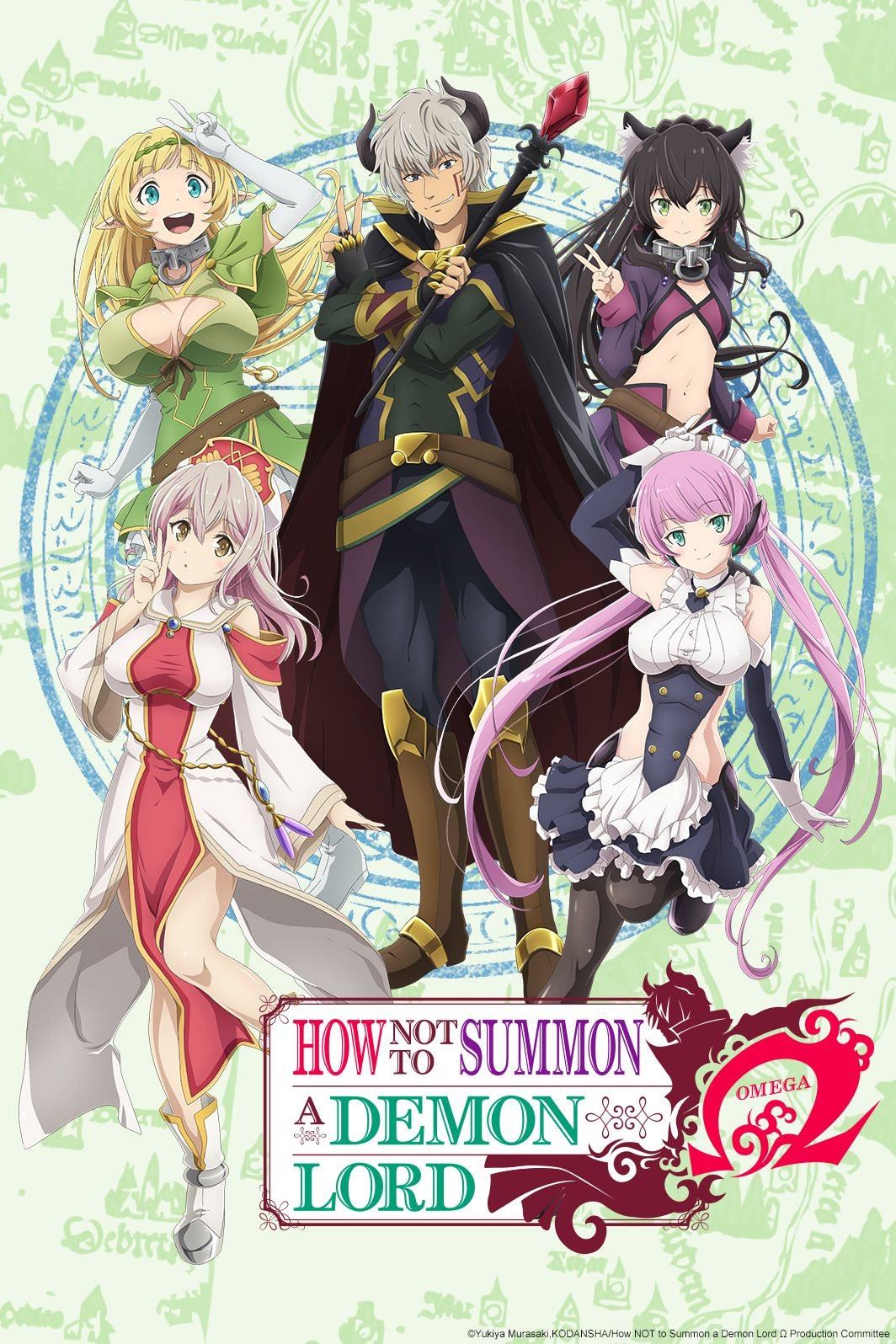
How Not to Summon a Demon Lord Font
BookHow Not to Summon a Demon Lord is a Japanese light novel series illustrated by Takahiro Tsurusaki and written by Yukiya Murasaki. J-Novel Club publishes light novels in English. It tells the story of Takuma Sakamoto, a solitary gamer, who is transported into the world of Cross Reverie, becoming the character he created.
ITC Century Handtooled, an inline version of Century Bold, is used in the English title. Century Handtooled is offered in Bold weight and an oblique style.